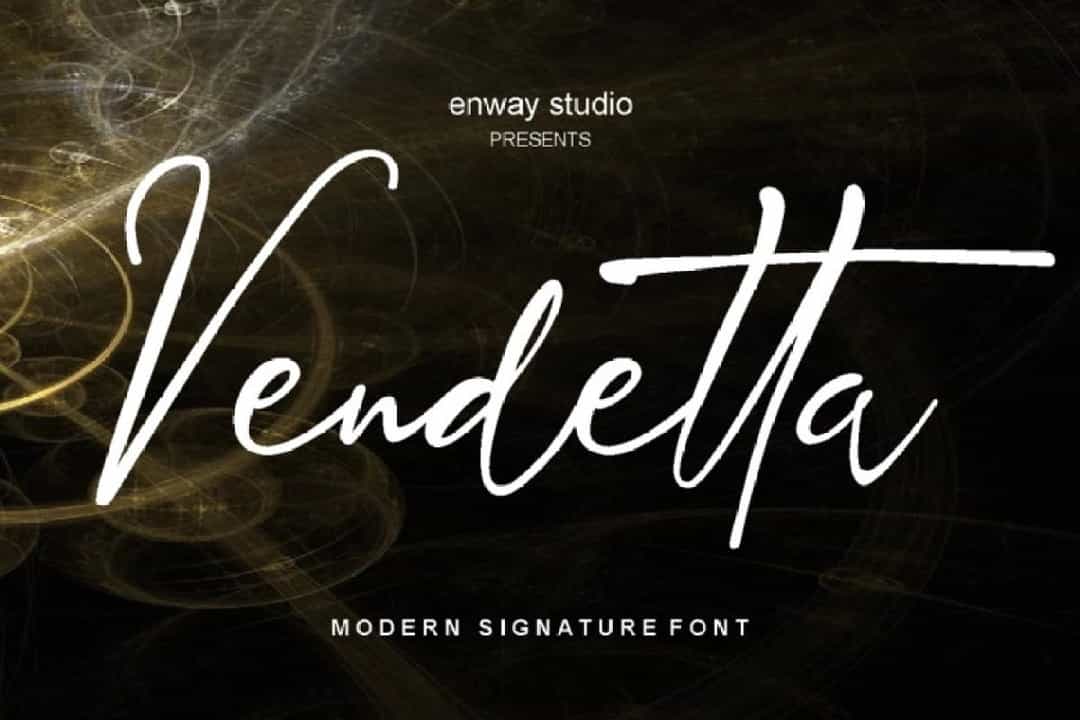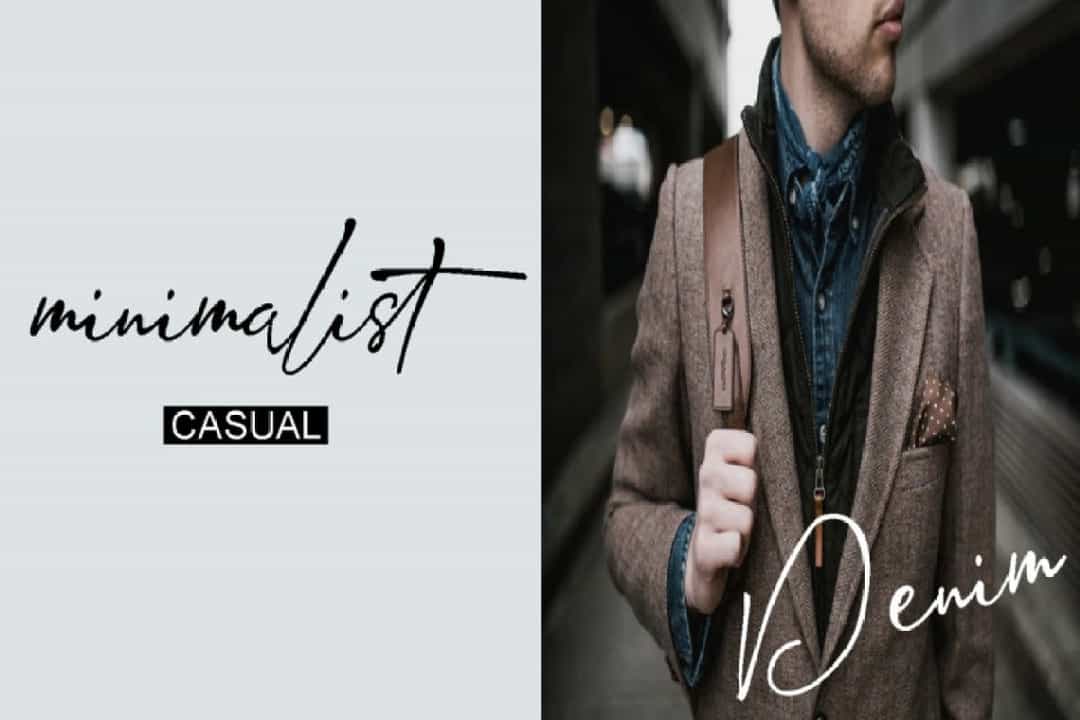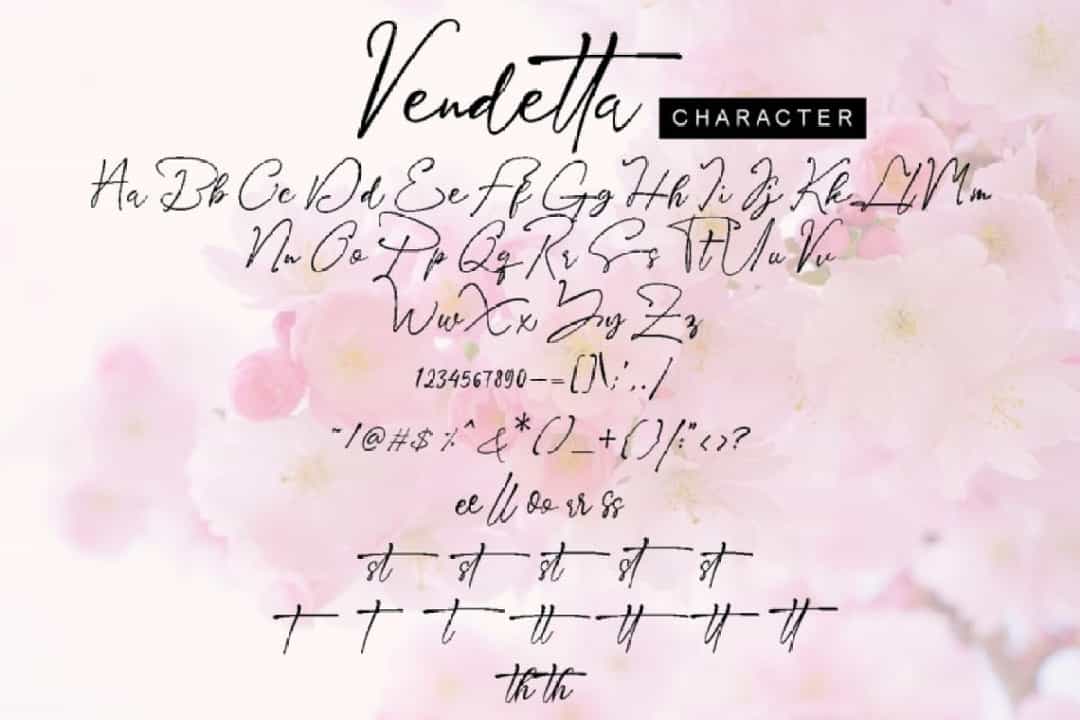
Vendetta Signature Font is a calligraphy style with handwritten look and feel which has modern and contemporary edged hand strokes. Adding different characters, this writing style is very suitable for logos, fashion menus, stationery magazines, invitations and is also perfect for books, packaging, greeting cards, greeting labels, clothing, marketing, business cards, etc.